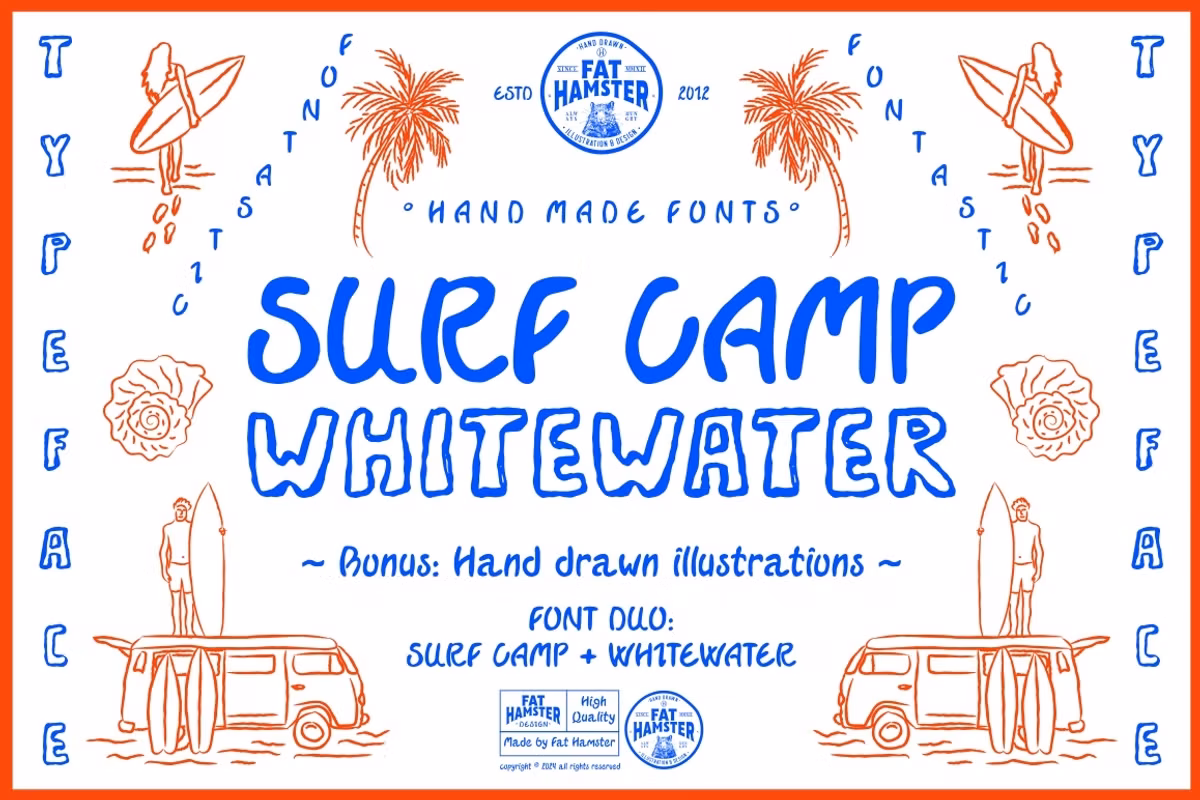
Surf Camp & Whitewater Fonts Free Download is a sun-soaked font duo inspired by beach vibes, surf culture, and retro coastal design. This playful and adventurous type combo is perfect for summer posters, t-shirt designs, travel branding, surf shop logos, and laid-back social media graphics.
With bold, breezy lettering and a free-spirited feel, these fonts capture the rhythm of the waves and the warmth of the sun. Whether you're creating a vintage-inspired campaign or designing merch for beach lovers, Surf Camp & Whitewater deliver that chilled, oceanside attitude.
Plus, the bonus elements included make it even easier to create eye-catching visuals that scream endless summer.